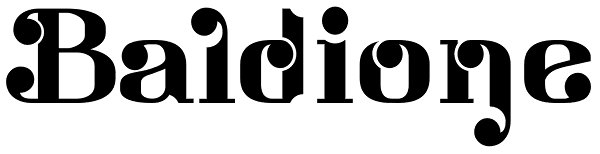
Baldione
Baldione is a highly stylised variation upon a classic Didone typeface, incorporating a globular decorative 'ball' or 'blob' in each character's design. The result has a feel of the 1970s about it somehow and works well in poster and advertising...